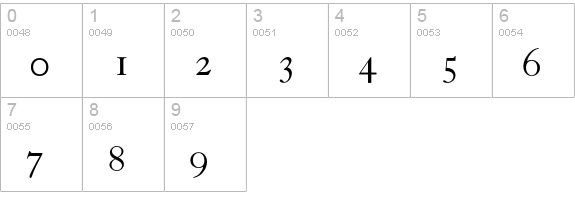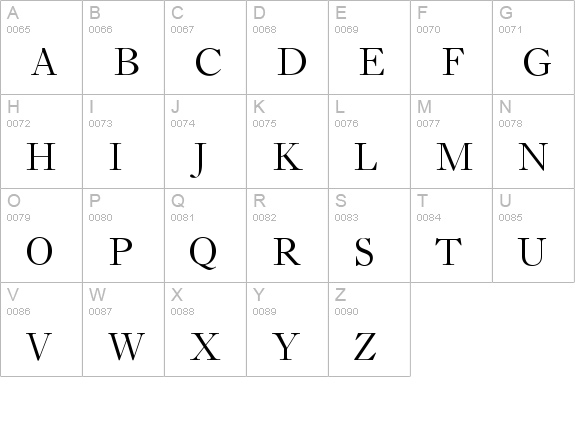
CaslonC37-LightAlternates is a refined and elegant typeface that exudes sophistication and classic charm. With its delicate strokes and graceful curves, this font is perfect for adding a touch of timeless beauty to any design project. The alternates in this variant offer a unique twist to the traditional Caslon typeface, providing additional versatility and creativity for your typography needs. What makes CaslonC37-LightAlternates even more appealing is that it is available for free download at FontsMarket.com. Now you can easily enhance your designs with this exquisite font without any cost. Whether you're working on a branding project, editorial design, or any other creative endeavor, CaslonC37-LightAlternates is a wonderful choice that will elevate your work to new heights. Download it today and experience the beauty and versatility of this stunning typeface.